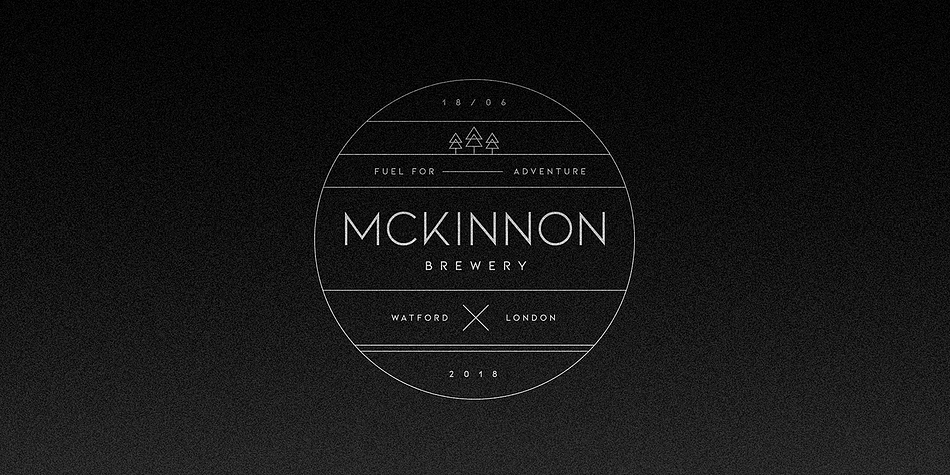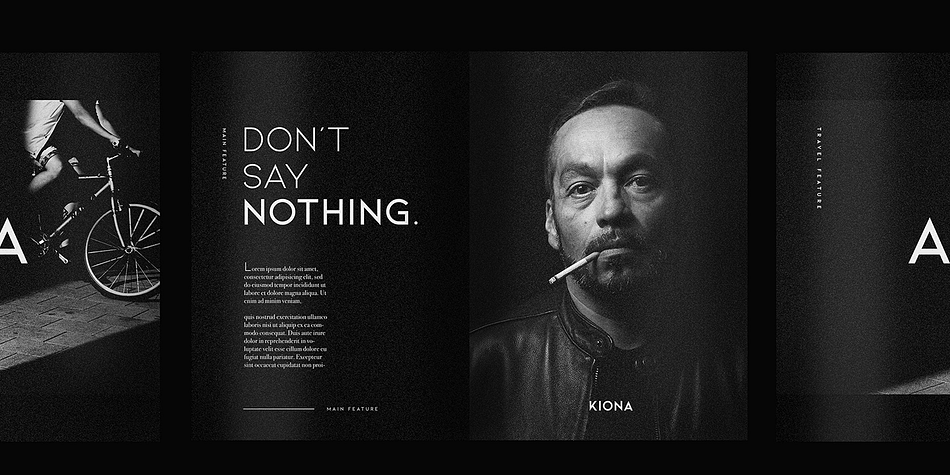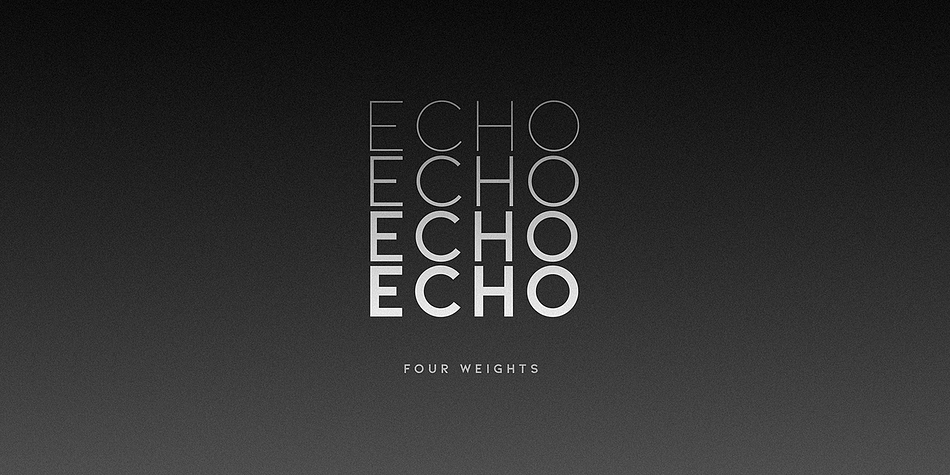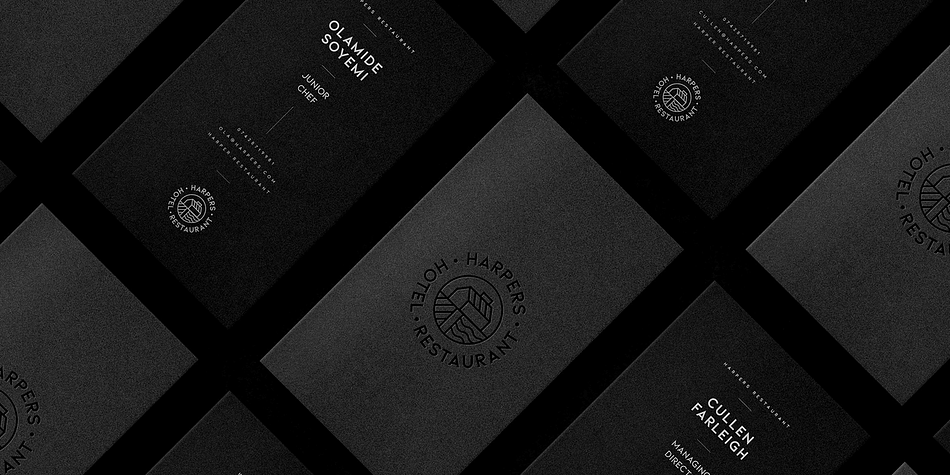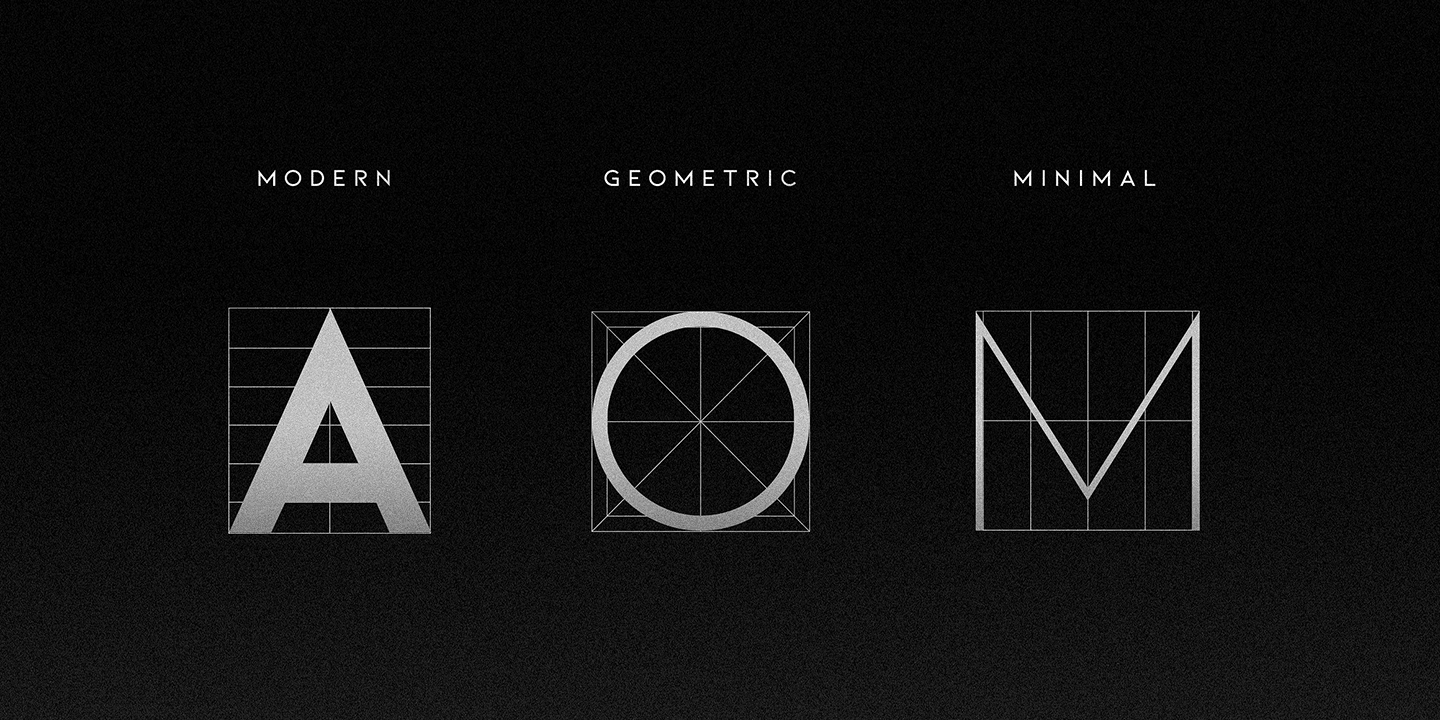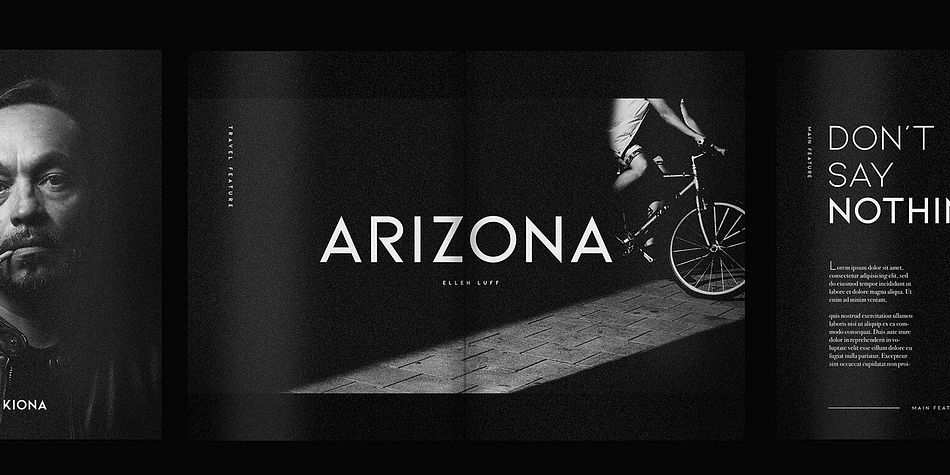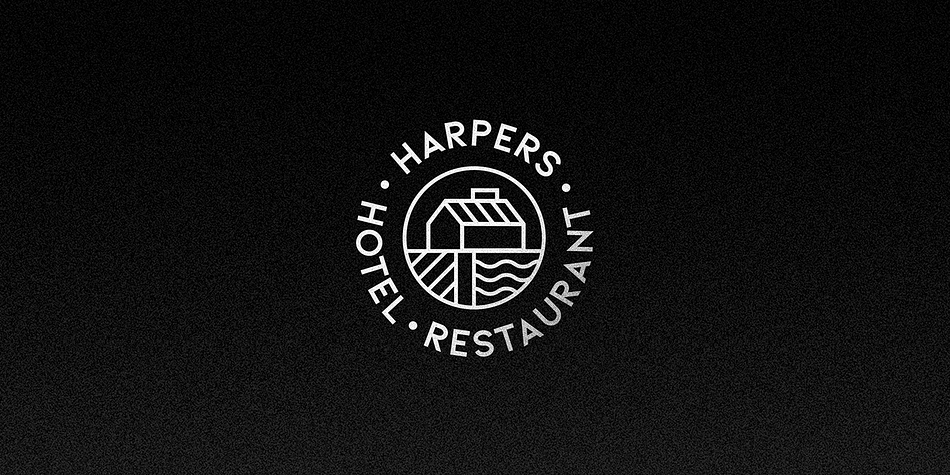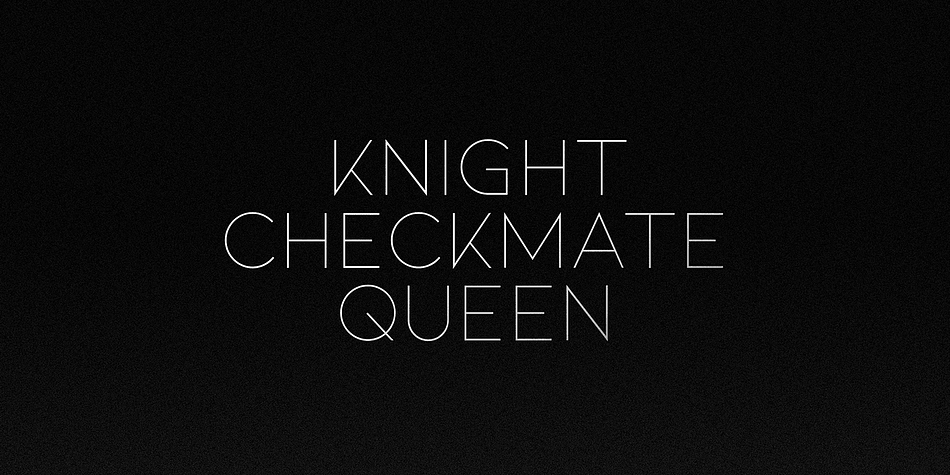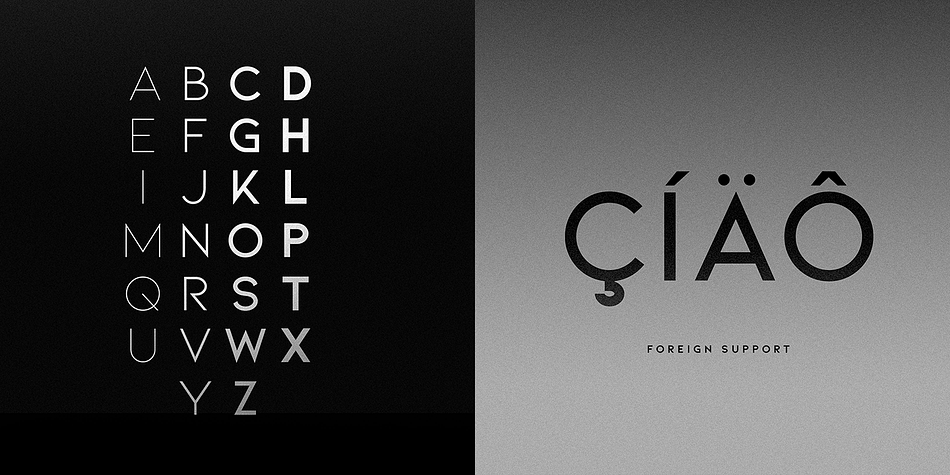
Designed by Ellen Luff, KIONA is a display sans font family. This typeface has eight styles and was published by Ellen Luff.
KIONA is simple but significant, and defined by its crisp edges and modern touches. It is designed for optimal legibility. An all caps sans-serif, KIONA makes a statement without making a scene.
Four weights, four very different personalities.
KIONA Bold. Strong and edgy
KIONA Light. Delicate and elite
KIONA Regular and Semibold are the balance between the two
*All four weights available in Italics
KIONA offers extensive language support, and works great in branding, logos, headlines, high fashion. The different weights give you full range to explore a whole host of applications, from tech startup, local events to sports matches.